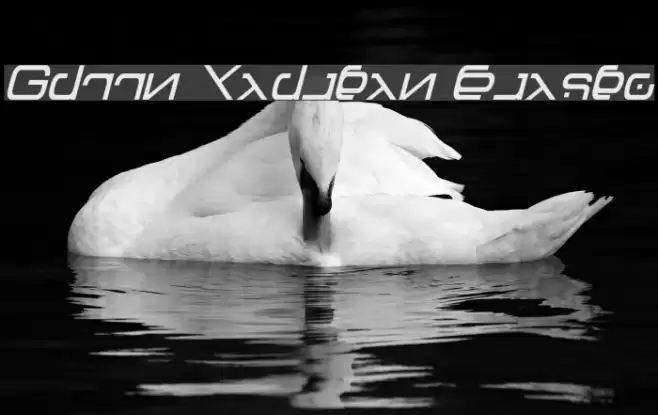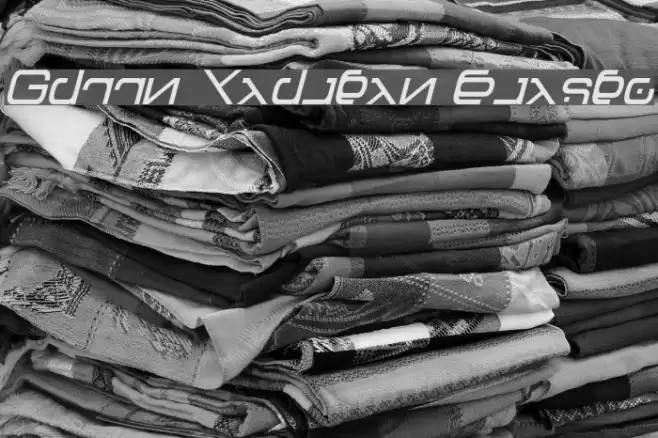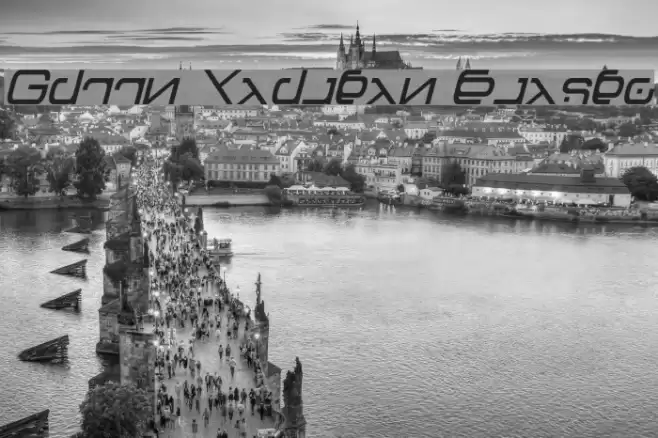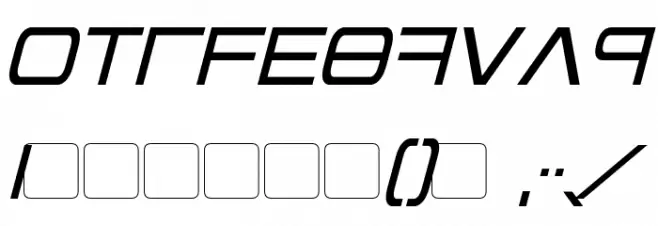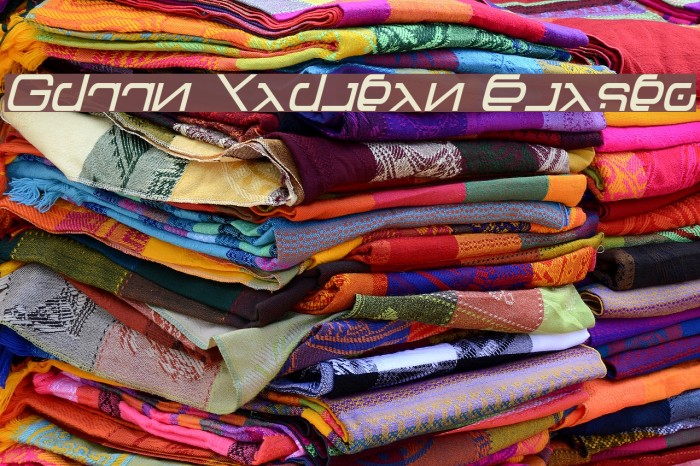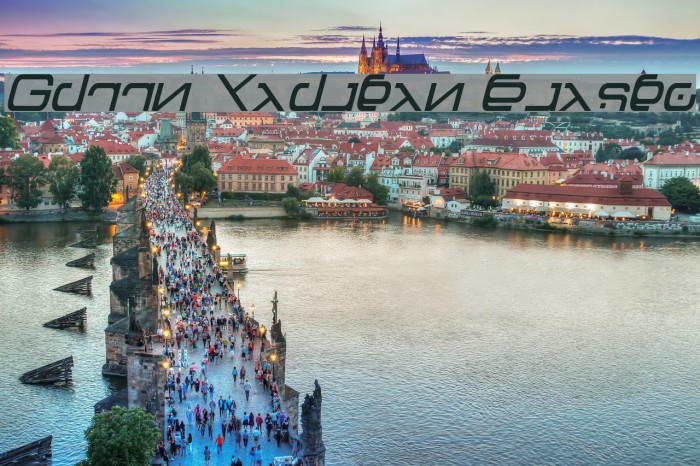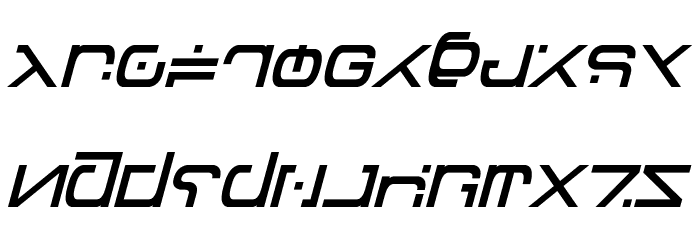
Green Martian Italic Font
Green Martian Italic Description
This futuristic and angular font features a unique design with sharp edges and geometric shapes. The characters are italicized, giving a sense of motion and speed. The font has a modern, sci-fi aesthetic, reminiscent of alien or space-themed designs. The uppercase letters are bold and striking, while the lowercase letters maintain the same angular style. Numbers and special characters are consistent with the overall theme, making it suitable for creative and unconventional projects.
A futuristic, angular italic font with a sci-fi aesthetic from Uncategorized fonts.
- Proposed Projects: Ideal for sci-fi movie posters, video game titles, futuristic branding, and tech-related designs.
- Overall Style: Futuristic